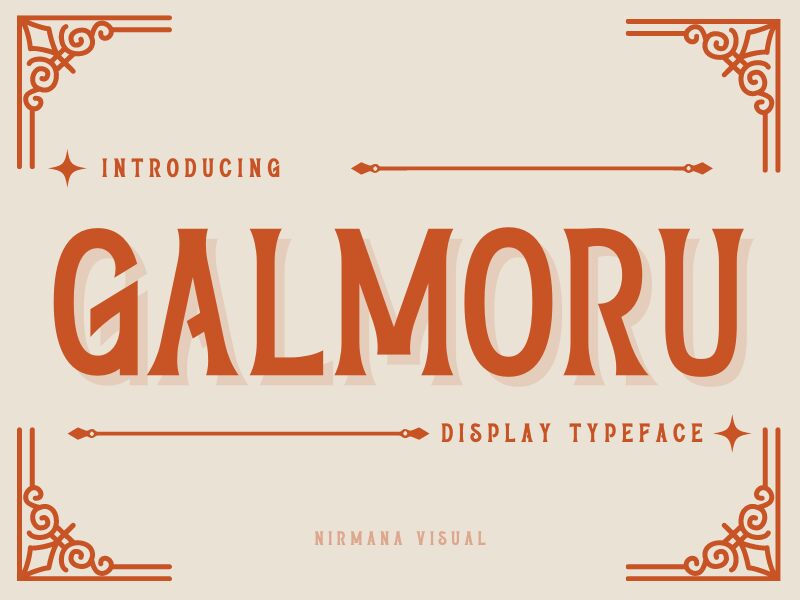
Galmoru, crafted by the talented Nirmana Visual, is a captivating display font that channels the nostalgic vibes of retro design. With its semi-bold weight and semi-condensed width, this font exudes a unique blend of elegance and boldness. Perfect for branding projects seeking to evoke a vintage feel or add a touch of sophistication to posters and advertisements. Galmoru's distinct retro serif style is also well-suited for creating eye-catching headlines, book covers, and logos that demand attention. Unleash your creativity with Galmoru and transport your audience back to the golden era of design.
Galmoru